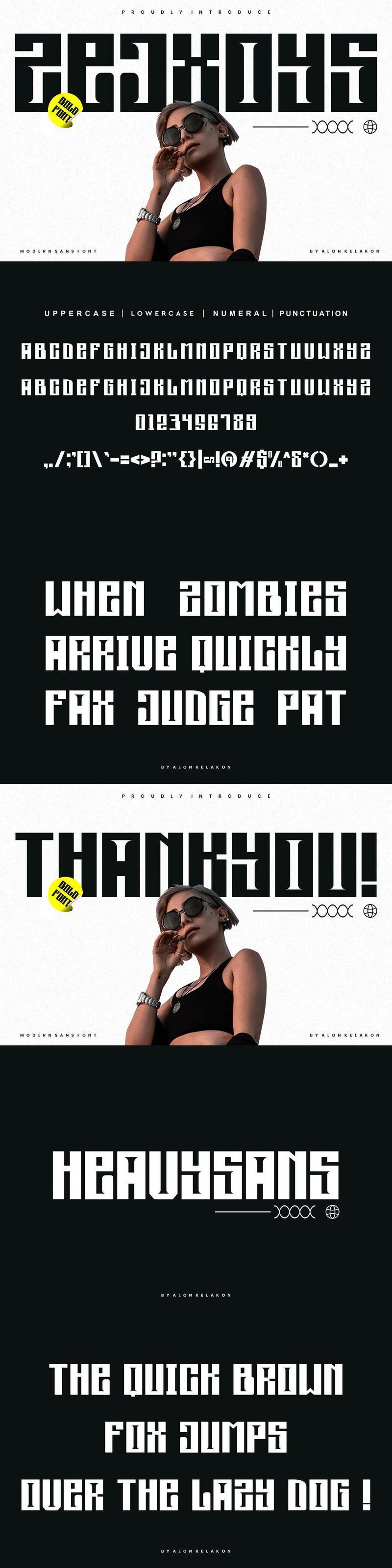
Zejxoys – Modern Sans & Bold Font 7GTMVW3
**Zejxoys** Font is unique . Ready to use for your design like labeling, movie sceen, poster, movie title, gigs, album covers, logos, and much more.